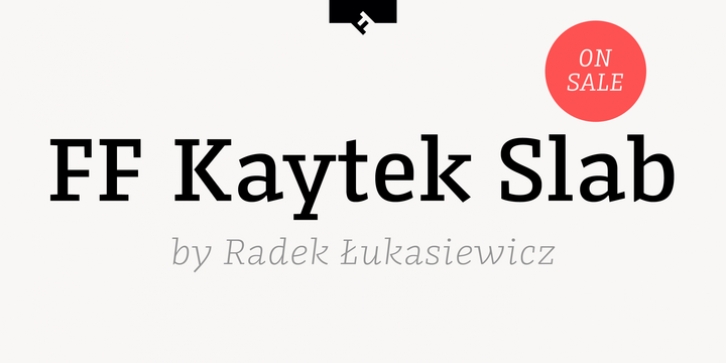
This blend of sturdiness and quirkiness means it's just as relevant for information-heavy projects, such as annual reports, as it is in more expressive environments. Although first and foremost designed for text, Kaytek Slab's details shine through in its heavier weights and larger sizes, meaning it also has display potential.
Every style of the typeface takes up exactly the same amount of space, thanks to the way Radek Åukasiewicz created the design. He based the entire typeface on a single, master set of proportions. This means designers can switch between styles without the text being reflowed, making it particularly useful in magazines, where space might be limited, and also on the internet, where hover links appear in a different style.
As well as its roots in the office, Kaytek Slab draws on a little bit more 90s nostalgia. It's named for the first and only Polish walkman, and embodies the same solid, no-nonsense shapes that made the analogue technology of the era so charming. Kaytek Slab is robust and solid.
Kaytek Slab comes in 12 weights, from Thin to Black Italic, and offers multi-language support. Kaytek Sans is also available.